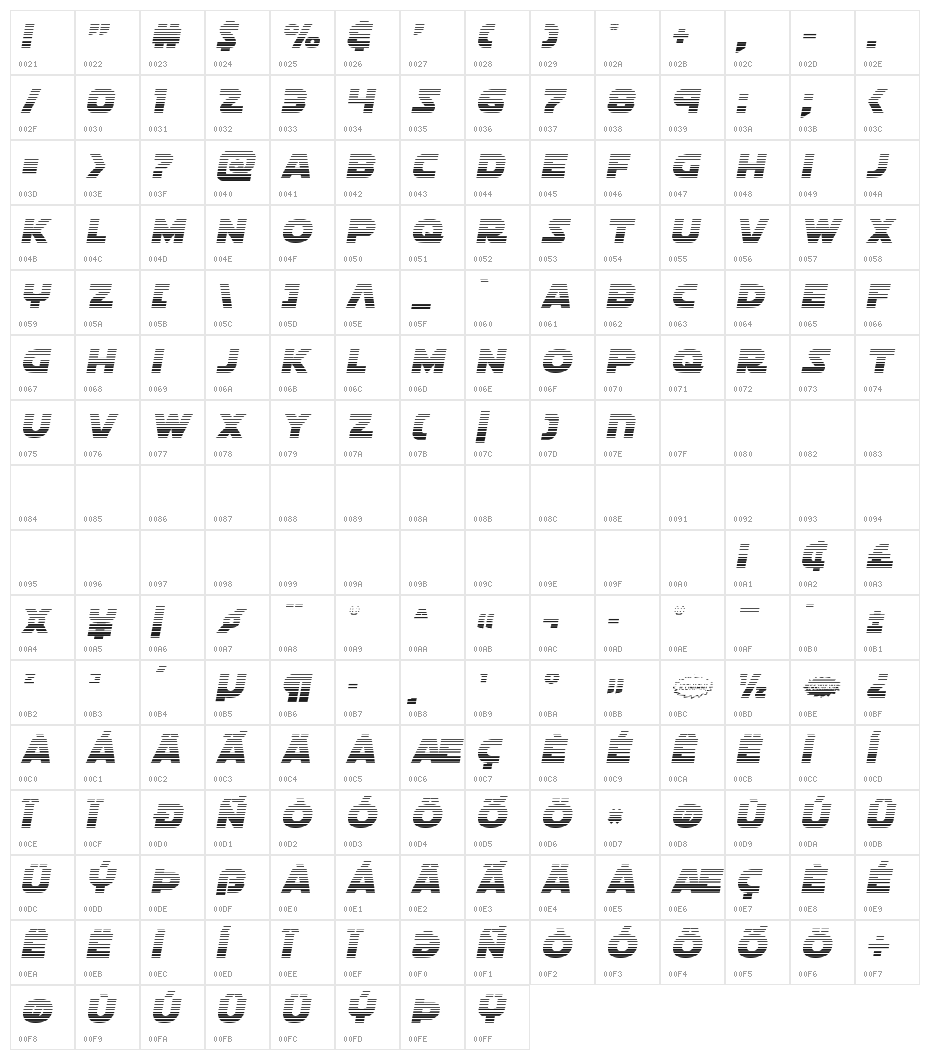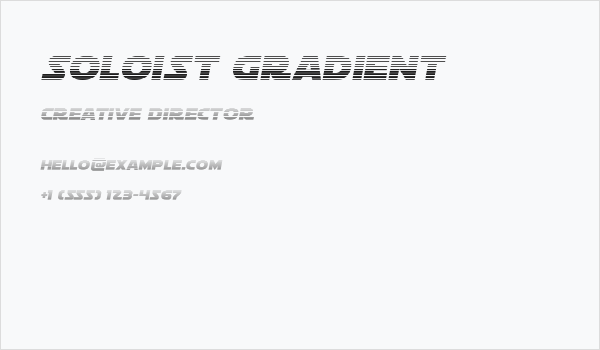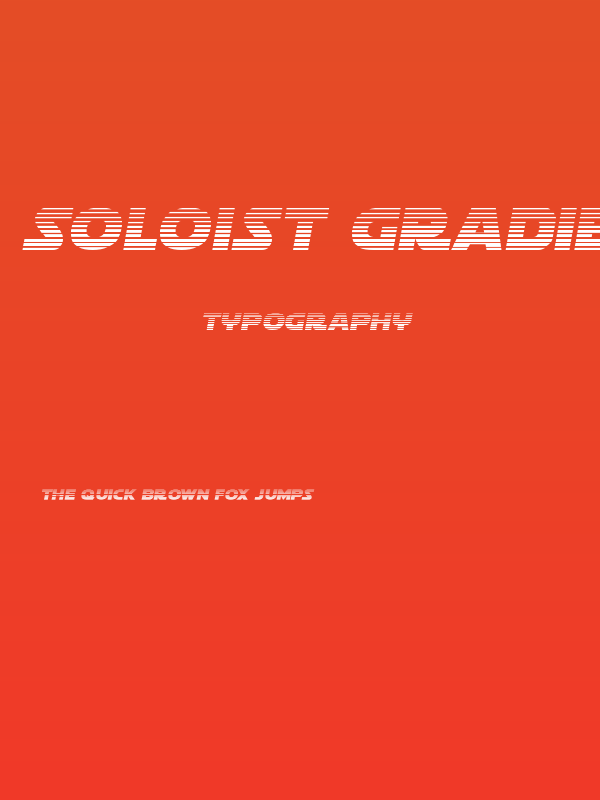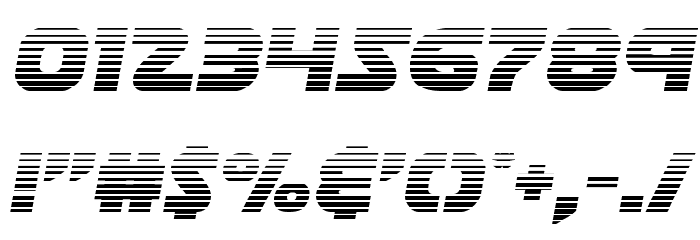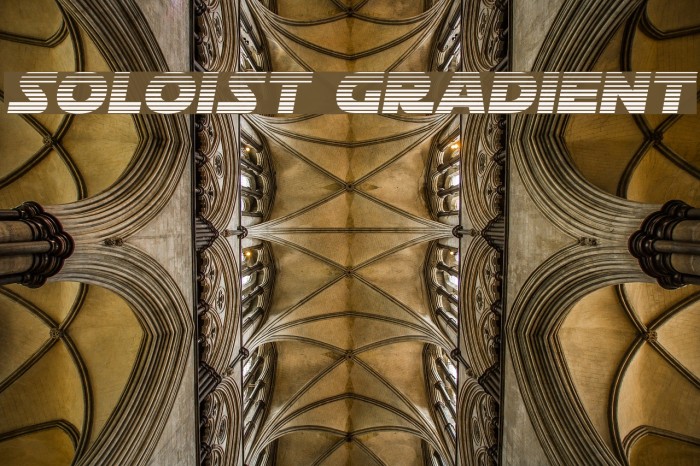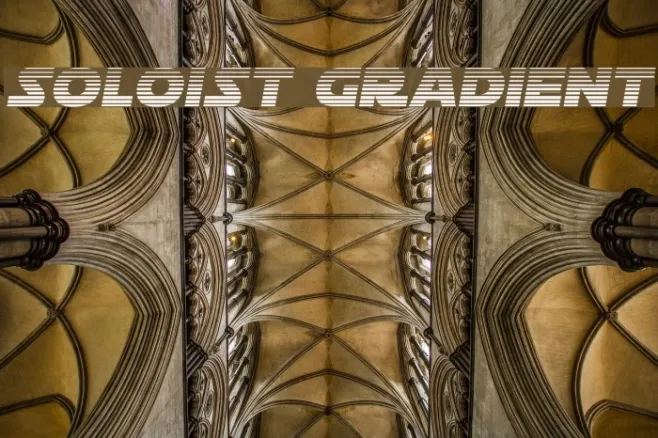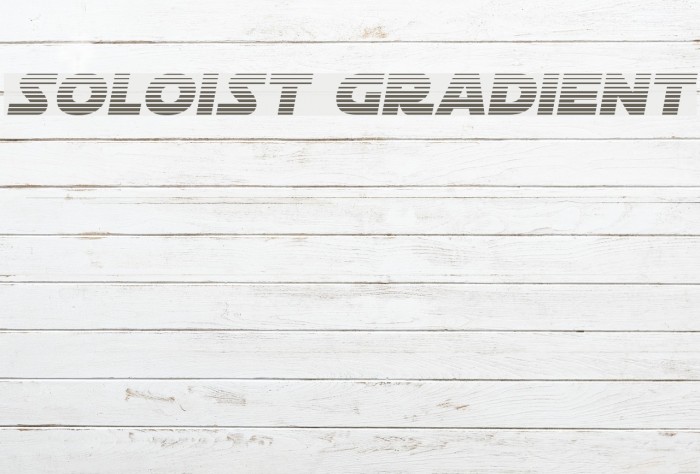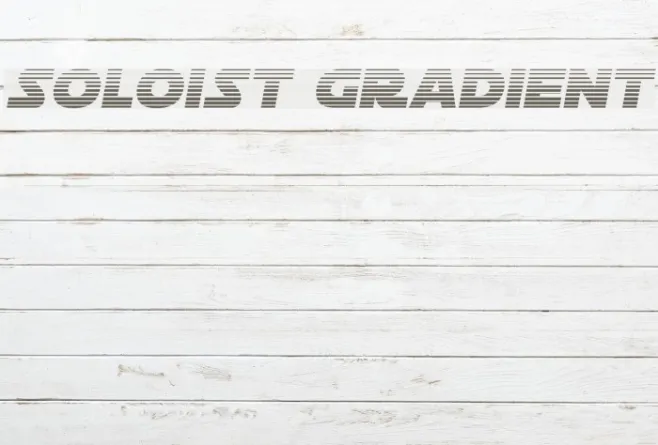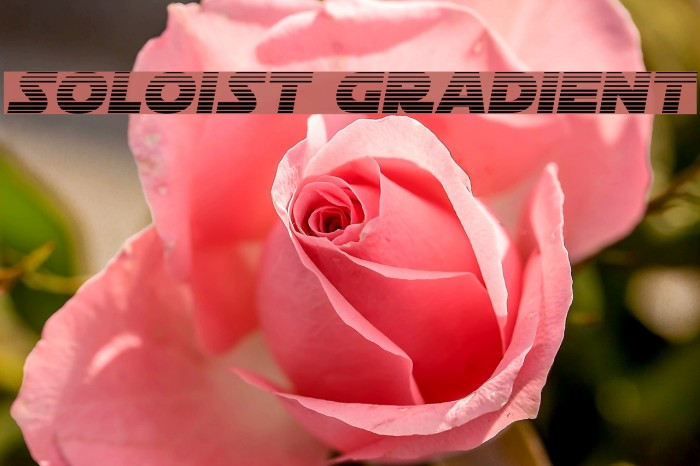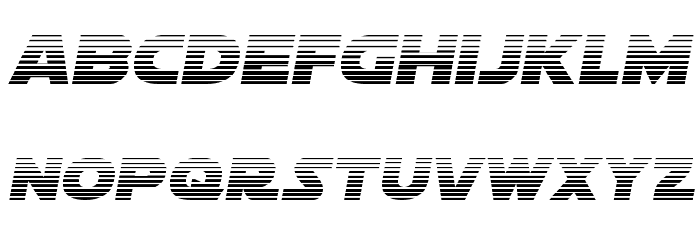
Soloist Gradient Font
Soloist Gradient Description
This font features a bold and dynamic design with a distinctive striped pattern running horizontally through each character. The uppercase and lowercase letters, as well as the numerals and special characters, maintain a consistent style that emphasizes movement and energy. The stripes create a sense of speed and modernity, making it ideal for projects that require a futuristic or tech-inspired aesthetic. The bold weight of the font ensures strong visibility and impact, while the unique pattern adds a decorative touch that sets it apart from traditional typefaces.
| Proposed Projects | Ideal for sports branding, tech-related designs, futuristic posters, and dynamic advertisements. |